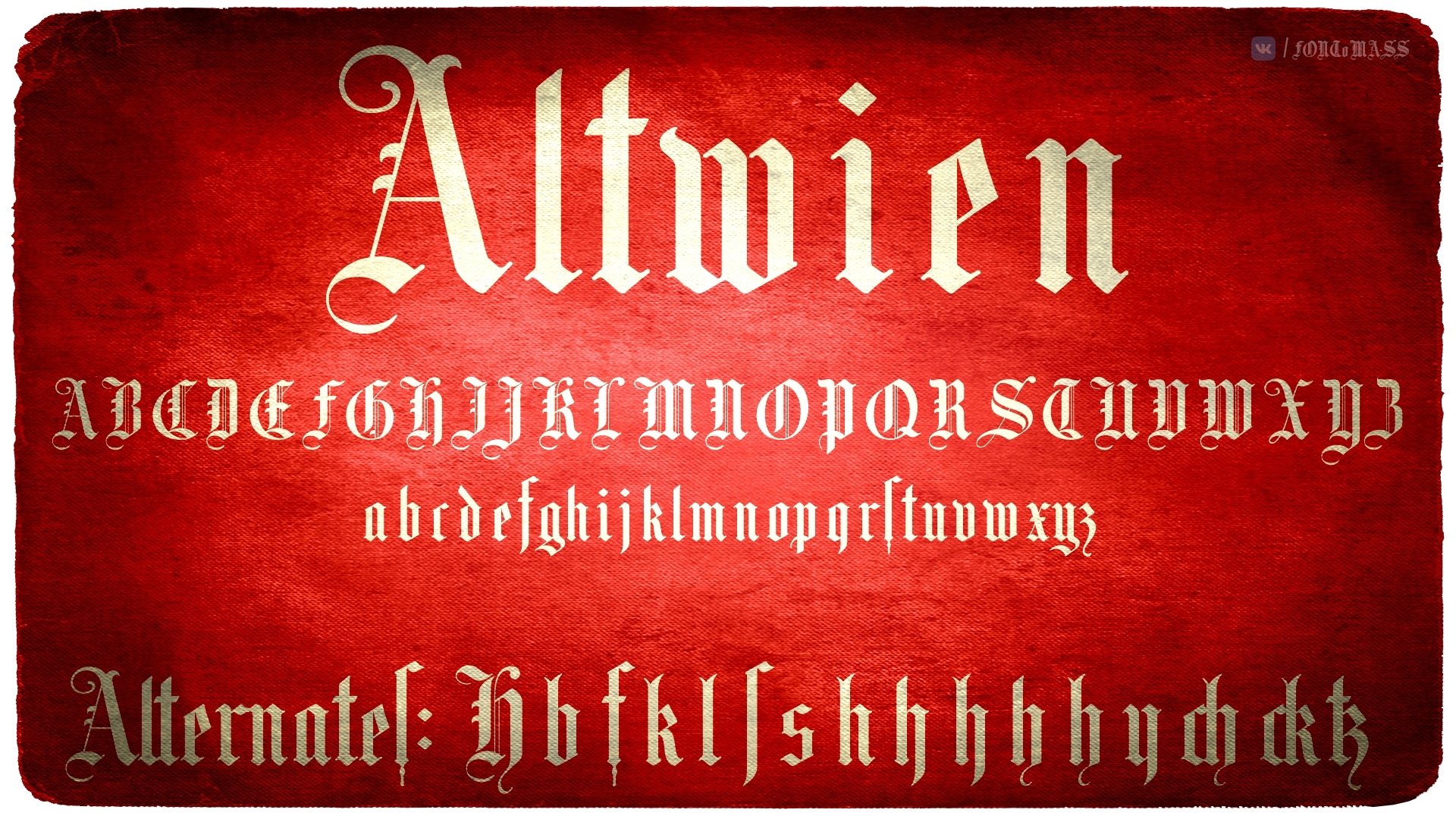
Altwien Font
Altwien Font is perfect for vintage branding, classical music venues, historical publications, traditional bakeries, heritage brands, antique shop signage, old-world restaurants, cultural institutions, period film titles, and nostalgic design projects.
Altwien Font is exciting because it masterfully captures the timeless elegance of Vienna's golden age with its sophisticated letterforms and classical proportions that evoke the grandeur of European typography traditions. Its refined character design bridges historical authenticity with contemporary functionality, making it perfect for brands seeking to communicate heritage, craftsmanship, and enduring quality.
The Altwien Font family includes Light, Regular, Medium, Bold weights, corresponding Italic styles, Small Caps variations, Ornamental capitals, Decorative flourishes, and Historical alternates, providing designers with comprehensive tools for creating authentic period typography and distinguished brand experiences.
Altwien Font Free Download delivers exceptional classical typography for projects requiring historical authenticity and sophisticated appeal. This distinguished typeface combines traditional European design principles with modern technical precision, creating a versatile solution that works beautifully for brands wanting to convey heritage, quality, and timeless elegance in today's competitive marketplace.
Whether you're developing heritage brand identities, designing cultural publications, creating traditional restaurant materials, or producing period-appropriate content, Altwien Font provides the authentic foundation needed for credible historical design. Its classical character makes it particularly effective for luxury hotels, fine dining establishments, cultural organizations, and premium brands that value tradition and craftsmanship.
Perfect for brand historians, cultural designers, luxury marketers, and creative professionals working with heritage clients, this font offers the distinguished qualities essential for authentic period branding. The typeface's versatility ensures consistent elegance across both contemporary digital applications and traditional print media.
Altwien Font includes extensive European language support, historical typography features, and carefully refined details that guarantee authentic results in period design applications. Its classical approach to letterform design makes it indispensable for brands connecting with cultural heritage. Embrace timeless elegance with Altwien Font Free Download and create typography that honors the past while serving the present.